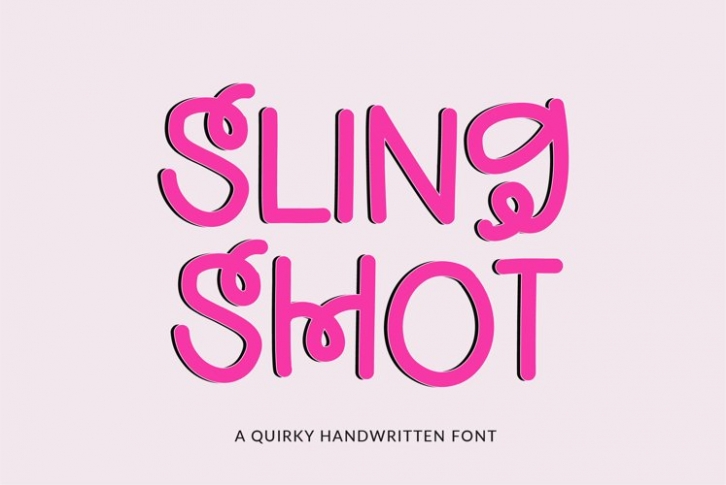
Sling shot is a gorgeous font that was realeased on November 11, 2021. The font can be used in many style contexts and design environments. Perfect for invitations, magazines, websites, logos, and more! It was designed by plusstore and the file size is 7.38 MB. Thanks for checking out this font!